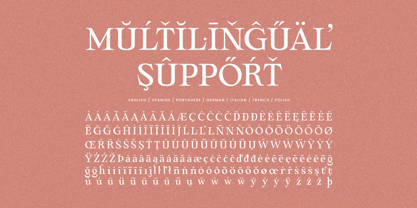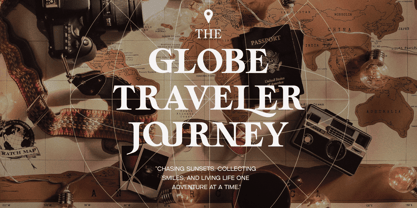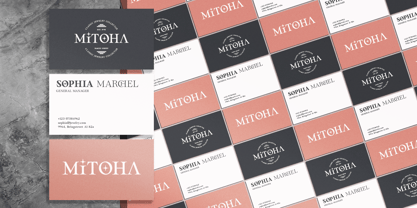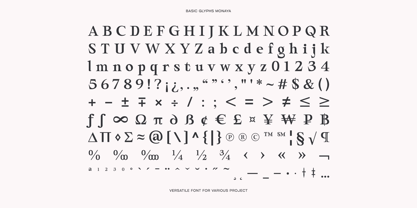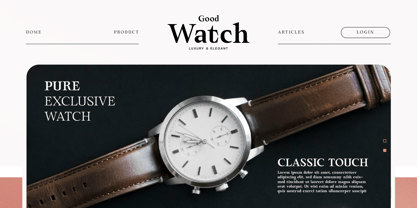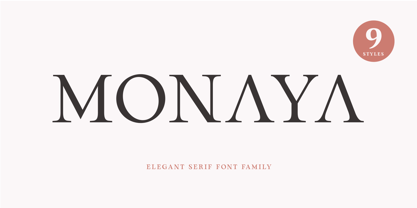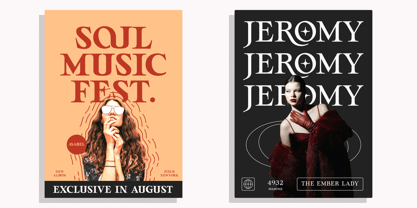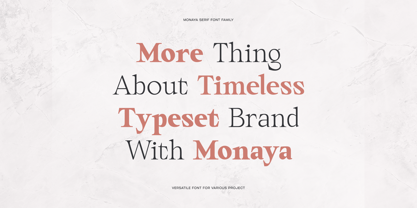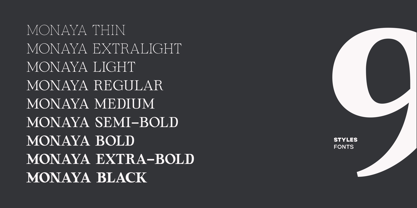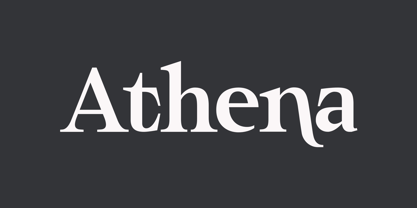
Monaya
by GuseType
The Monaya Font Family was designed by Guntur Septyan and published by GuseType. Monaya contains 9 styles and family package options.
Monaya is an elegant serif font that comes in 9 styles.
Monaya embodies timeless luxury with its classic serif style. Every stroke exudes refinement, blending elegance with a touch of grandeur. Perfect for enhancing any project such as posters, magazines, banners, branding, editorial design, and premium packaging, and more. Monaya has features such as ligatures and alternate glyphs, multi-language support, and punctuation mark.